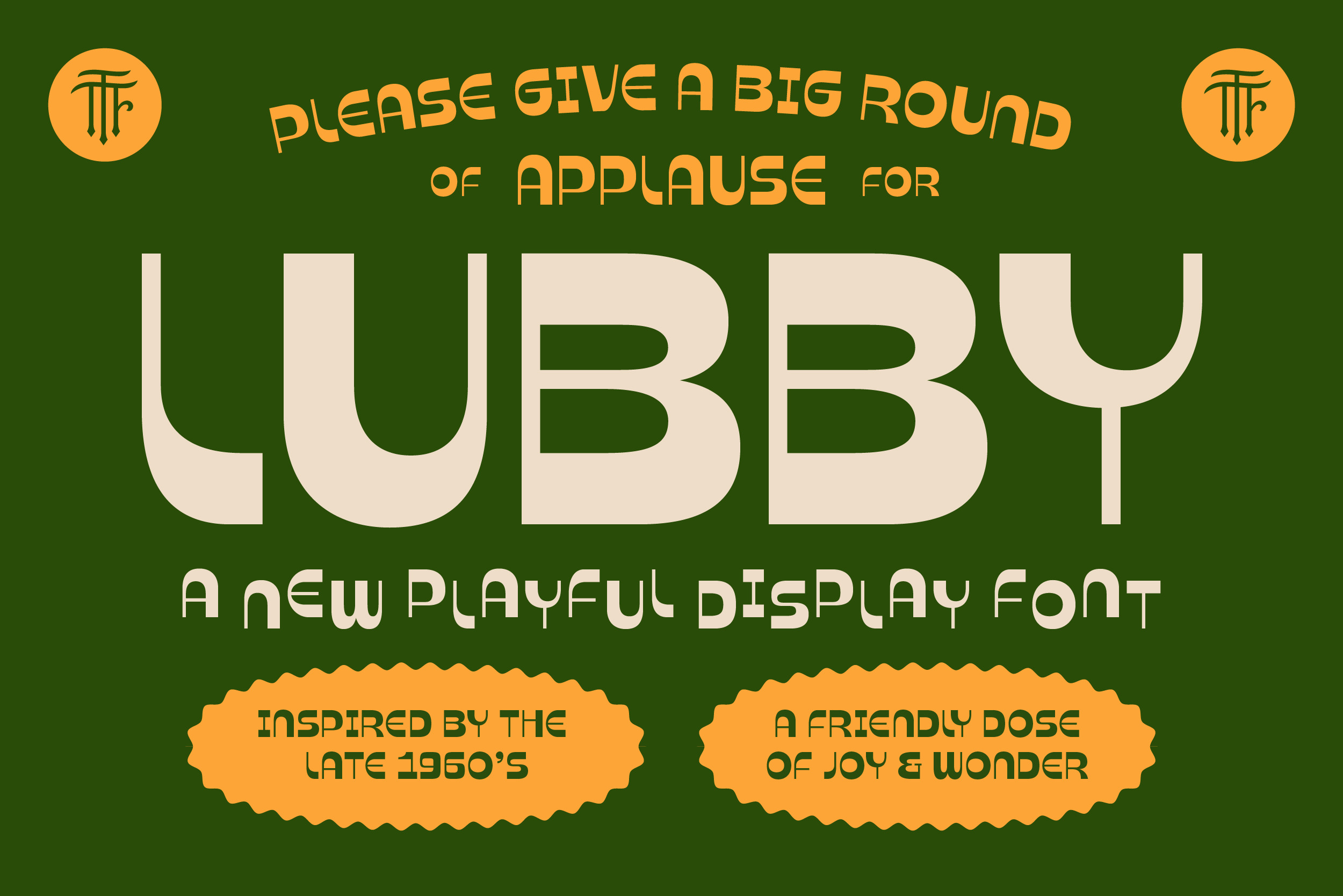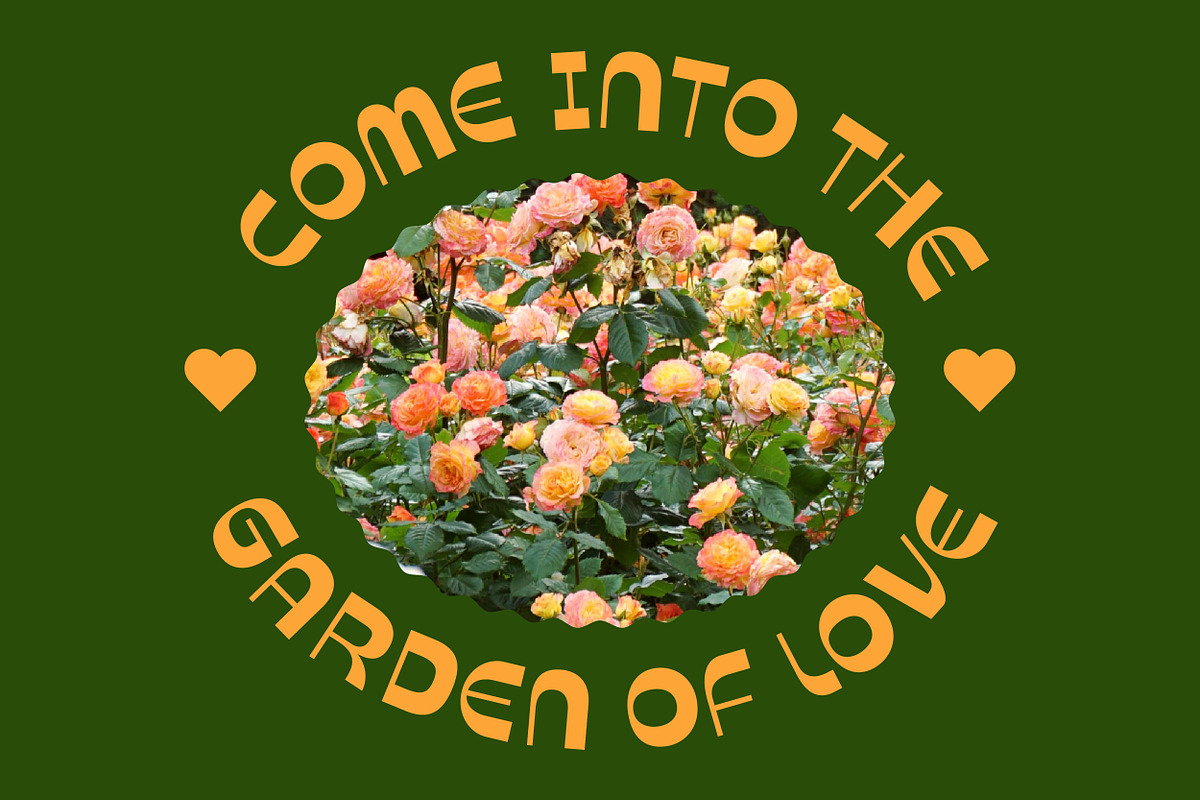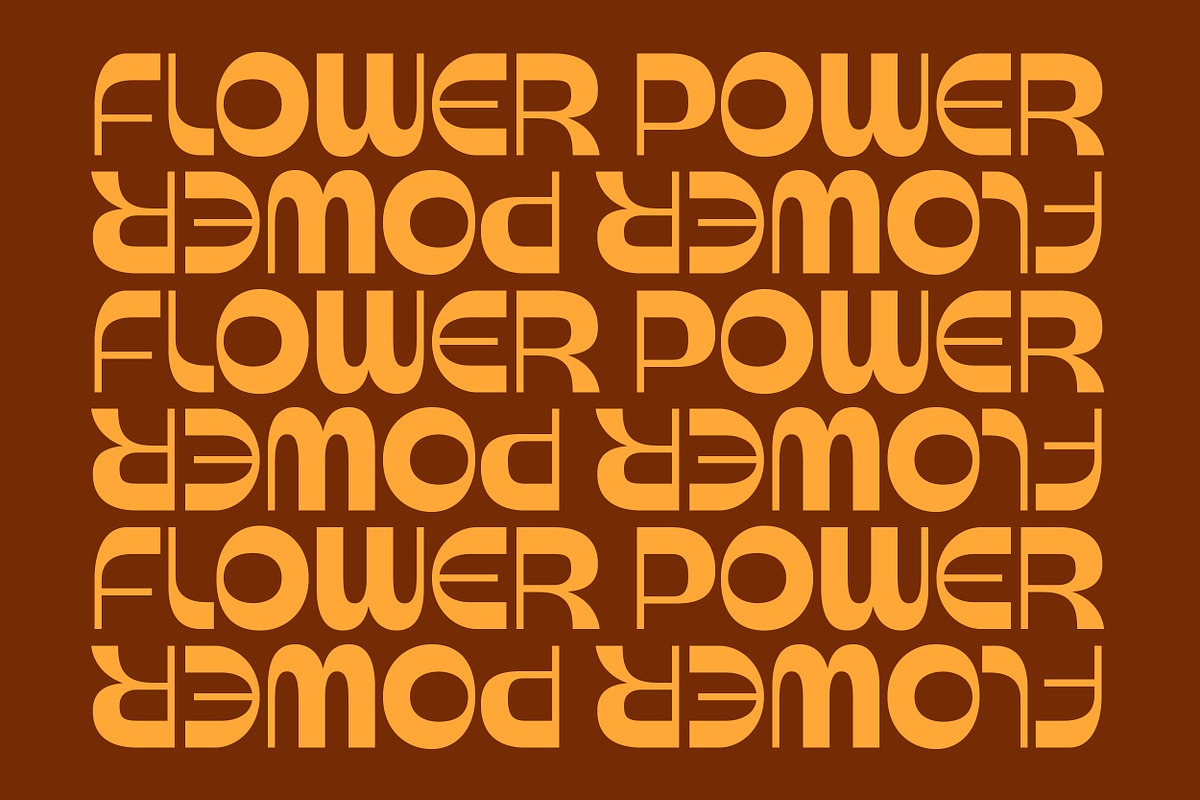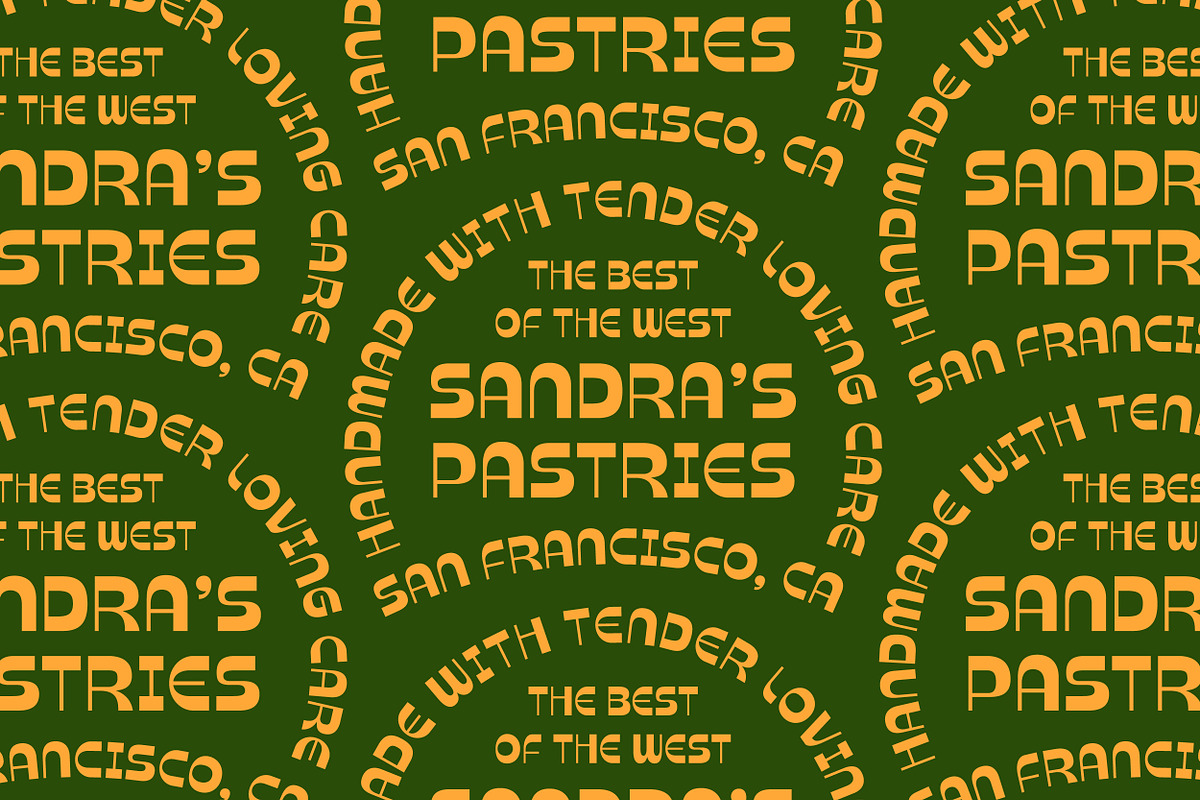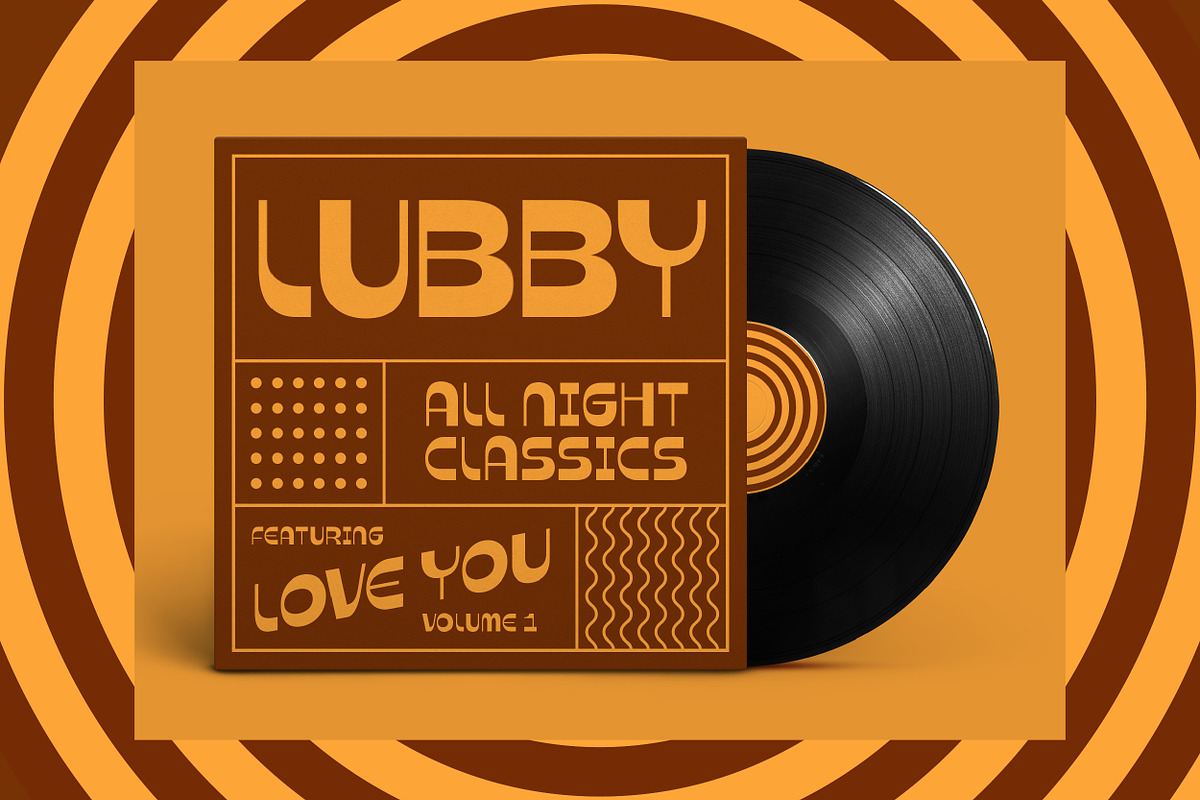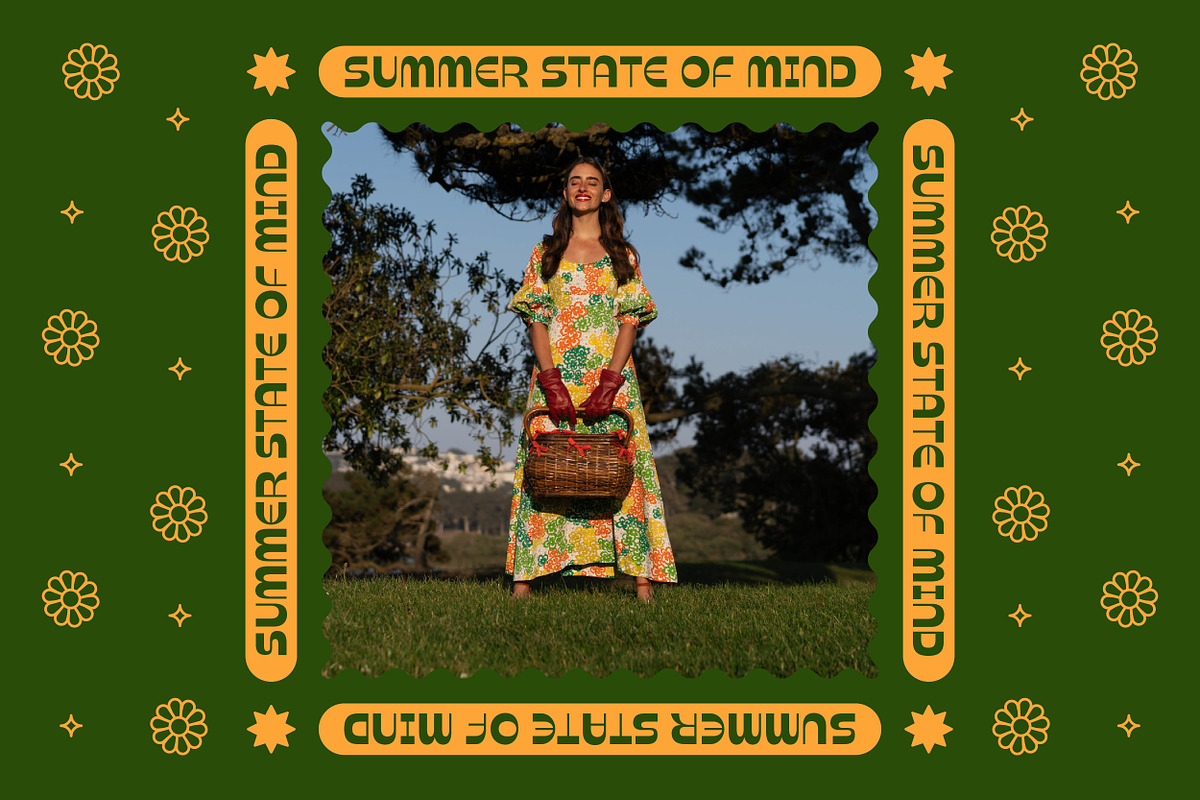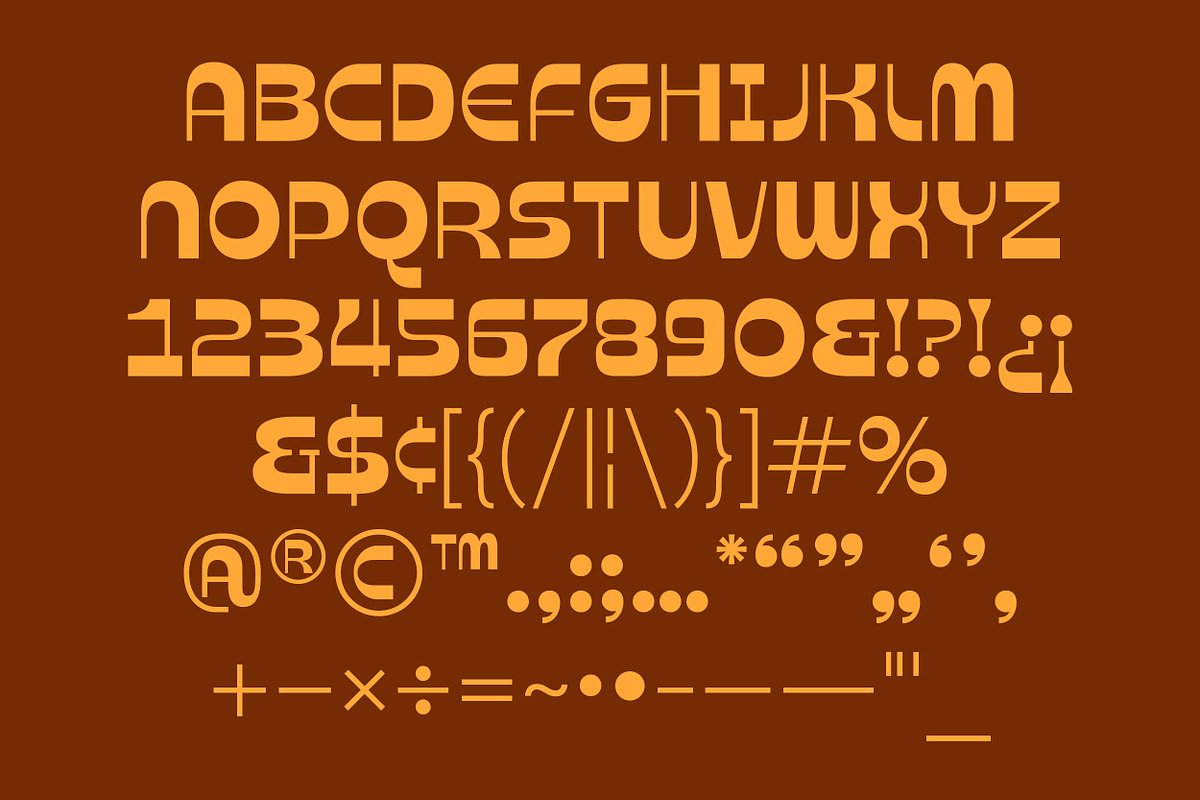
Lubby - A Playful 60s Font
Meet Lubby, my second designed font! A friendly dose of joy and wonder, Lubby holds a quirky personality that roots its inspiration from the late 1960s. Lubby is a high contrast display font featuring all uppercase characters that are ready to play. Bring positive energy to headlines, packaging, posters, logos, and more with Lubby!